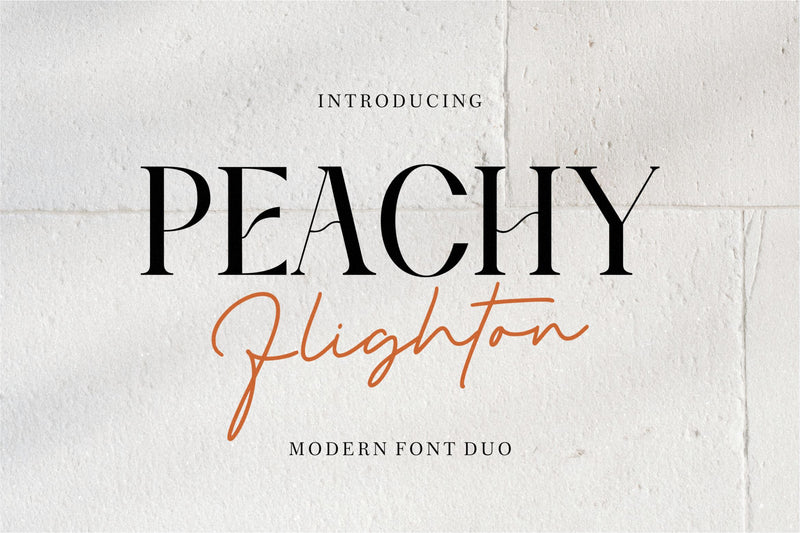
Peachy Flighton
Proudly Present, Peachy Flighton
Peachy Flighton is a Modern Font Duo
Peachy Flighton is perfect for product packaging, branding project, megazine, social media, wedding, or just used to express words above the background.